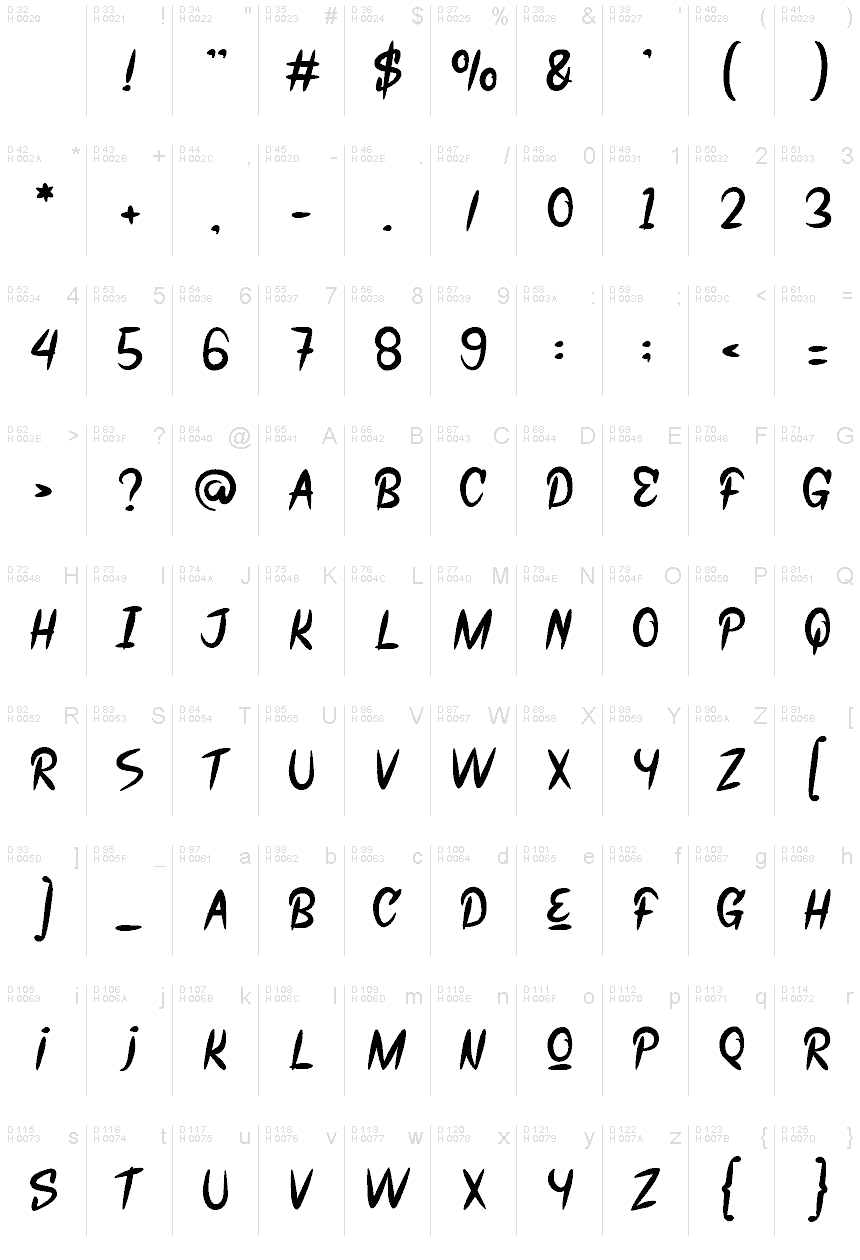
Ghost Died
Ghost Died font by Gilang Ternadho is a lively brush font inspired by street art. Its expressive and energetic design brings a contemporary, rebellious touch to your texts and reminds of the beauty found in graffiti art murals around the world. Switch your creativity to the next level as you freely use it in various personal as well as professional projects.
The free handwritten font looks great on posters, card designs, banners (both digital and printed), social media posts, memes, video titles, product packaging etc. Additionally, you could really bring some artistic value into branding materials like logos.